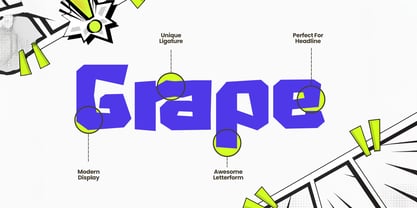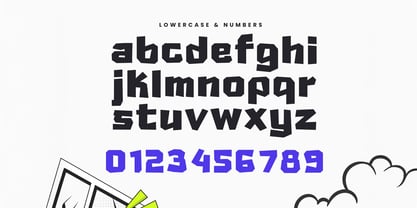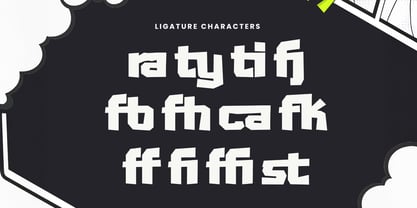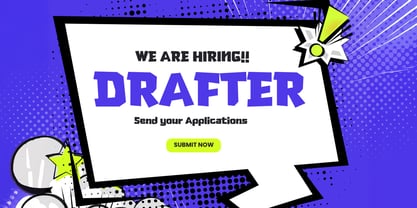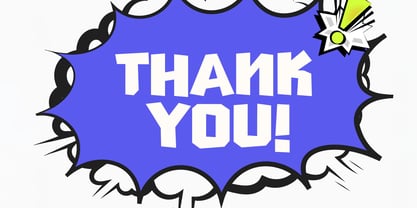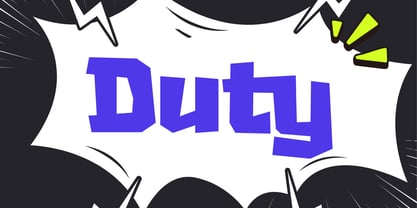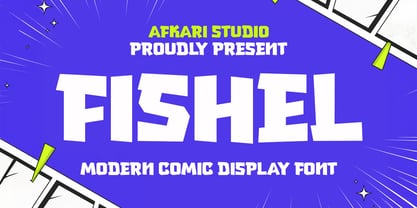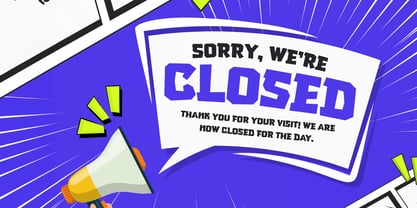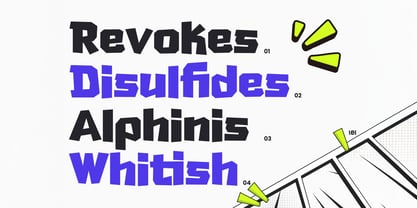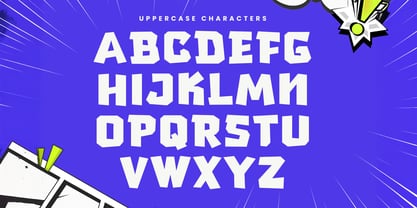
Fishel
by Afkari Studio
The Fishel Font Family was designed by Musthafa Kamal Emje and published by Afkari Studio. Fishel contains 1 styles. More about this family
Fishel is a modern comic-style font designed to bring energy, personality, and fun into your designs. Inspired by hand-drawn comic lettering but refined with clean, contemporary shapes, FISHEL delivers a playful tone without looking childish—perfect for modern creatives who want expressive typography with strong readability. With bold strokes, lively curves, and dynamic letterforms, FISHEL is ideal for projects that need a cheerful, friendly voice. Whether you’re working on kids branding, stickers, posters, social media content, comics, or merchandise, FISHEL makes every message feel animated and engaging. This font blends comic charm with modern versatility, making it suitable for both digital and print use. Highlighted Features: - Uppercase, Lowercase, Number, and Punctuation - Special alternates and ligatures - Works on PC & Mac - Simple installations - Accessible in Adobe Illustrator, Adobe Photoshop, Adobe InDesign, and even work on Microsoft Word - Fully accessible without additional design software. - Mültîlíñgúãl Sùppört for; ä ö ü Ä Ö Ü ß ¿ ¡ Hope you enjoy our font and this font is a useful font for your projects!